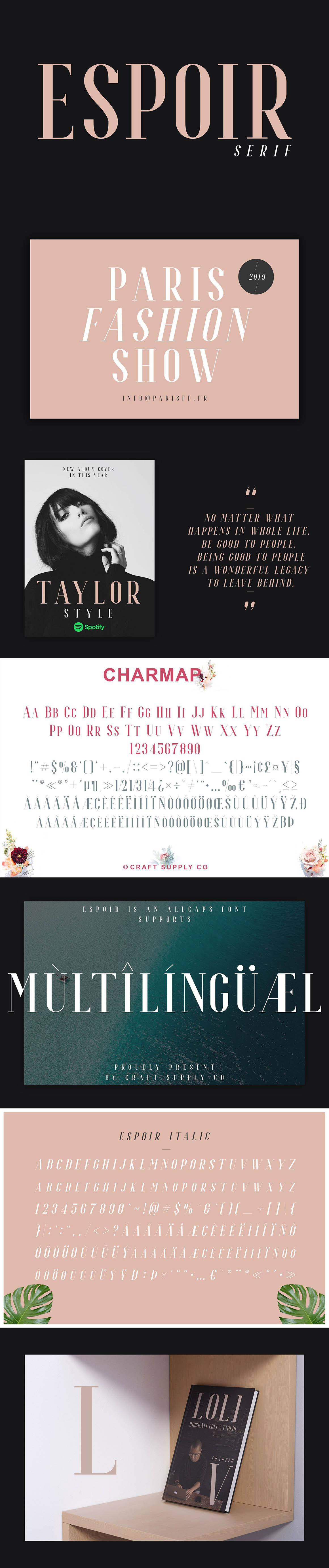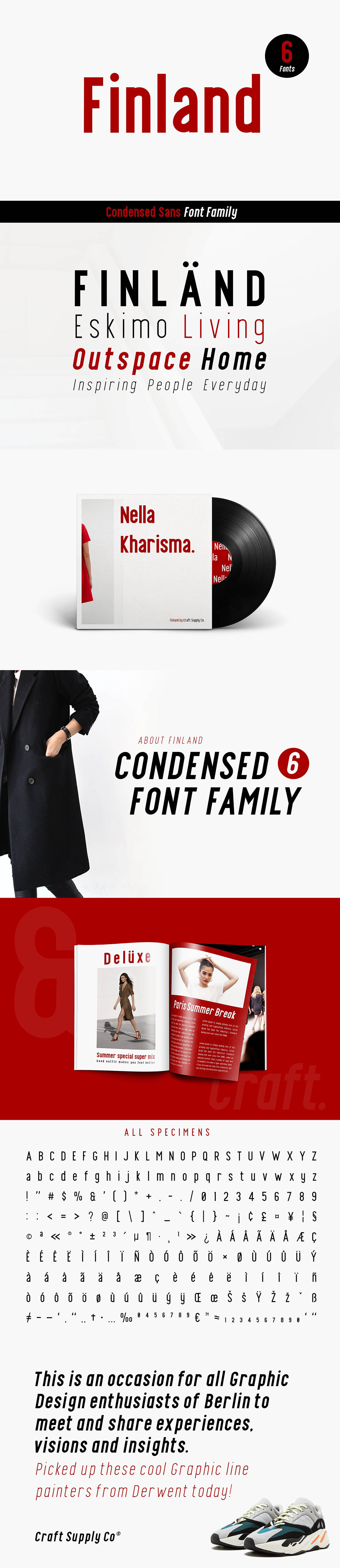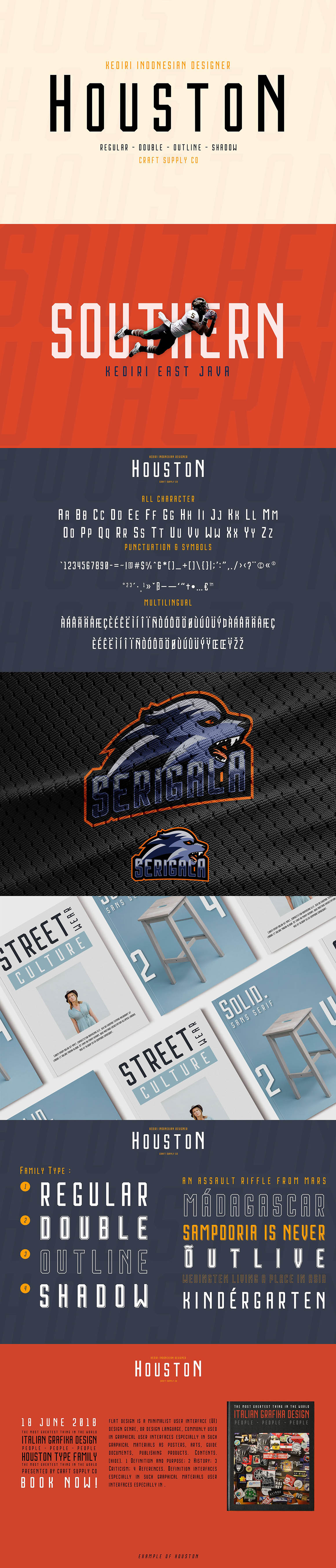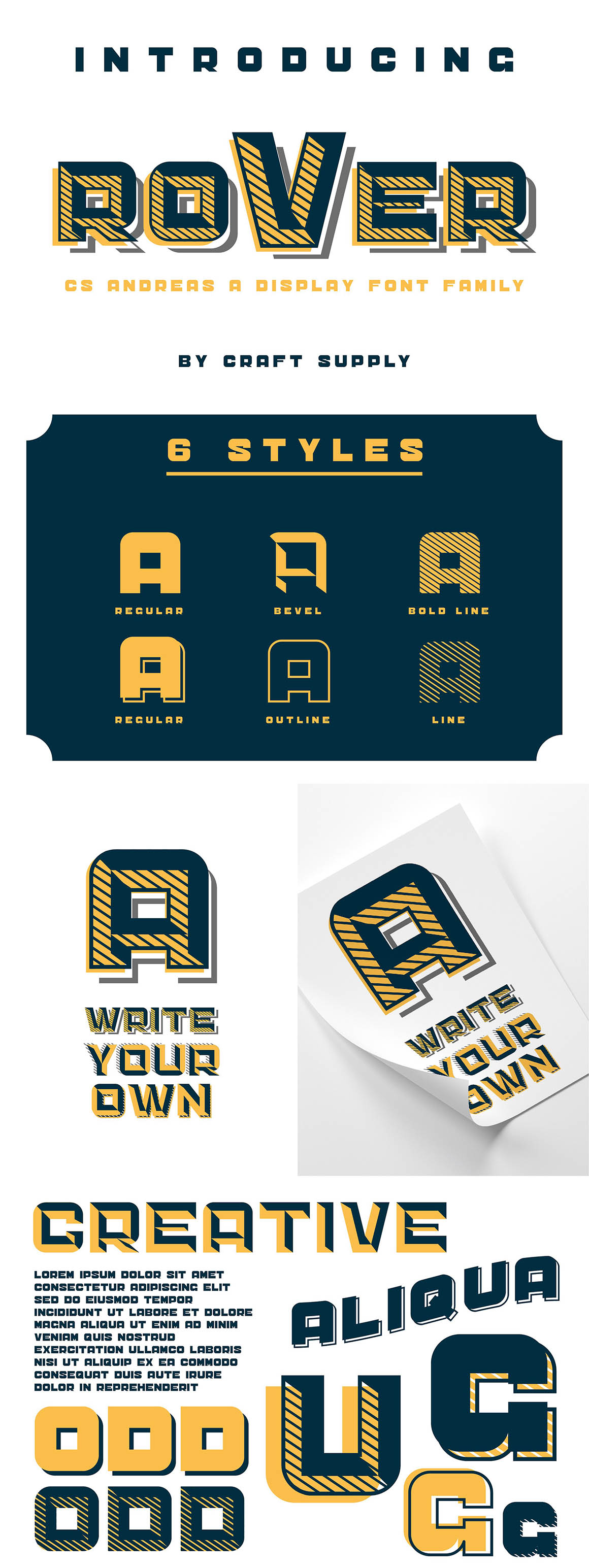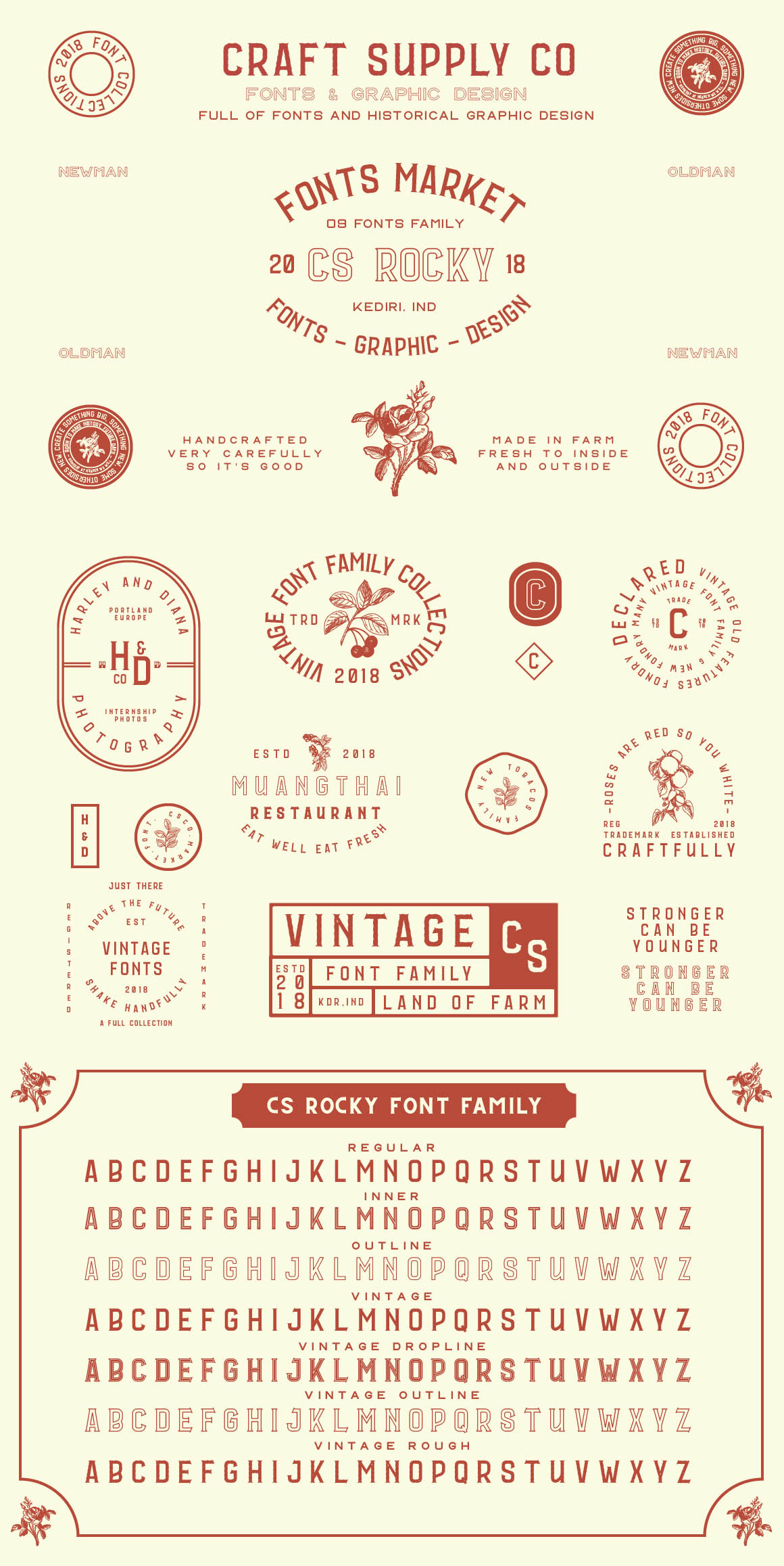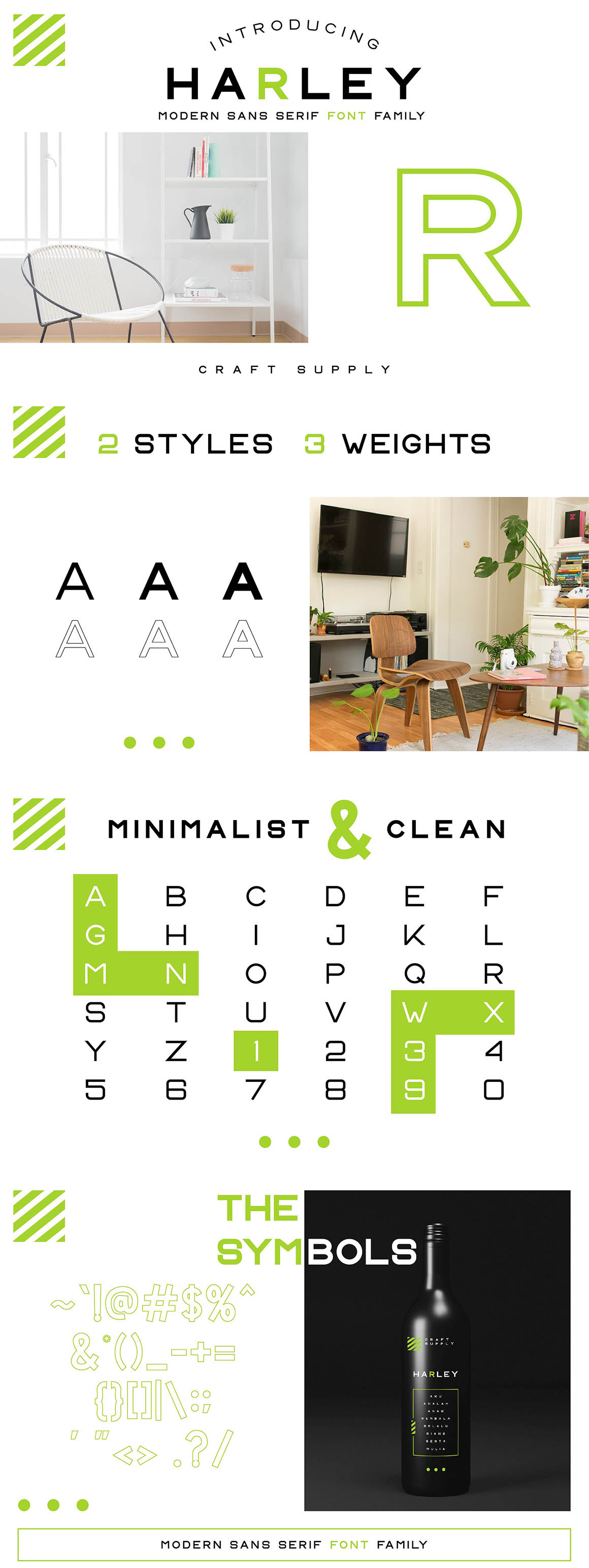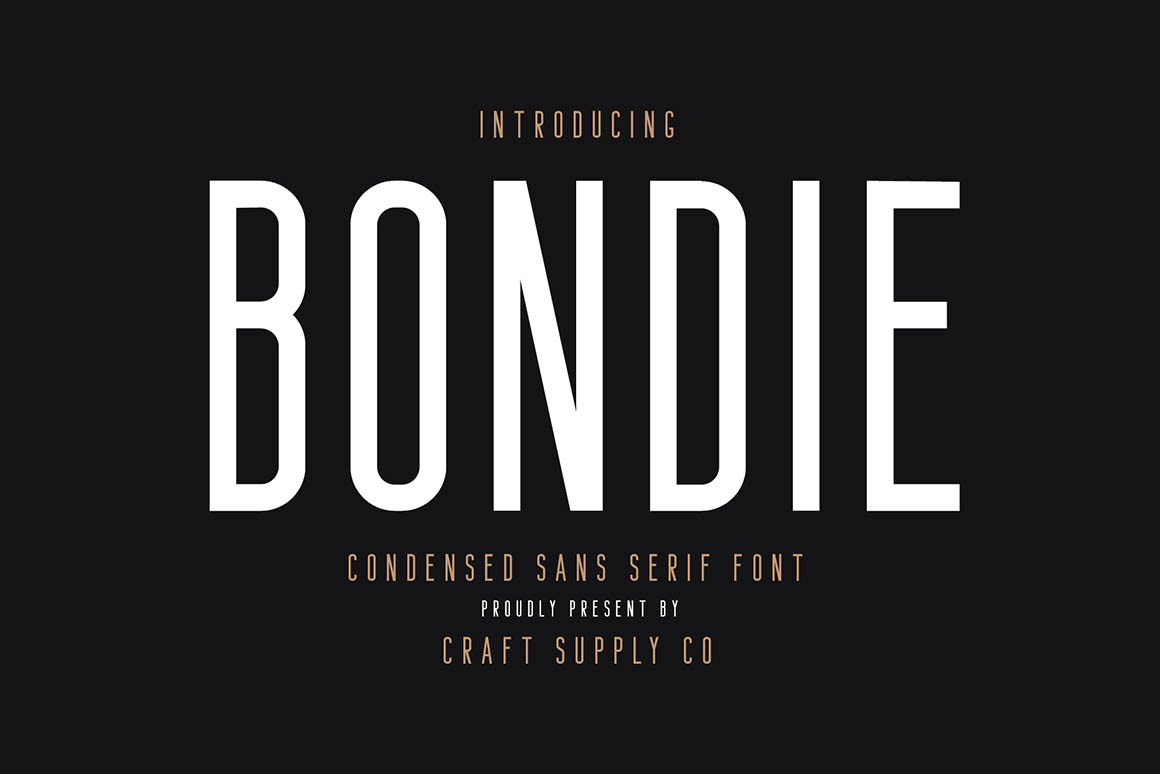
Brand new font bundle with 53 retro or vintage style fonts & some vector graphics extras. All these fonts are clean & elegant so you can use it for any kind of creative projects 😉
Retro & Elegant Fonts from Craft Supply Co. contains 15 clean & elegant style display font families with 53 fonts & some extra vectors & logo templates! Don’t miss this cool retro typography bundle 😉
- 15 clean & elegant retro style display font families with 53 fonts!
- extra vector graphics in some of these font families
15 clean & elegant retro style display font families with 53 fonts!
01. Belgium Font Family from Craft Supply Co.
Belgium Font Family is a modern serif font family whose design refers us to the style of modern sans serif. The distinctive features of Belgium Font Family are the relatively low contrast of strokes, the slightly squarish shapes of round characters and the emphasized business like simplicity.
Belgium Font Family features an original stylistic set which, when turned on, adds features of typical pointed-pen sans serif to some of the lowercase characters. In addition, Belgium Font Family has small capitals for Latin and as well as several interesting ligatures.
Belgium Font Family has been crafted from scratch with a structural logic of its own: a fusion of pure geometry and optical balance. By combining a variety of styles Belgium Font Family is suitable for Logo, greeting cards, quotes, posters, branding, name card, stationary, design title, blog header, art quote, typography
Belgium Font Family also suitable for art, modern envelope lettering or book design, happening style like handdrawn design or watercolor design theme, craft design, any DIY project, book title, wedding font, pop vintage design, or any purpose to make our art/design project look pretty and trendy.
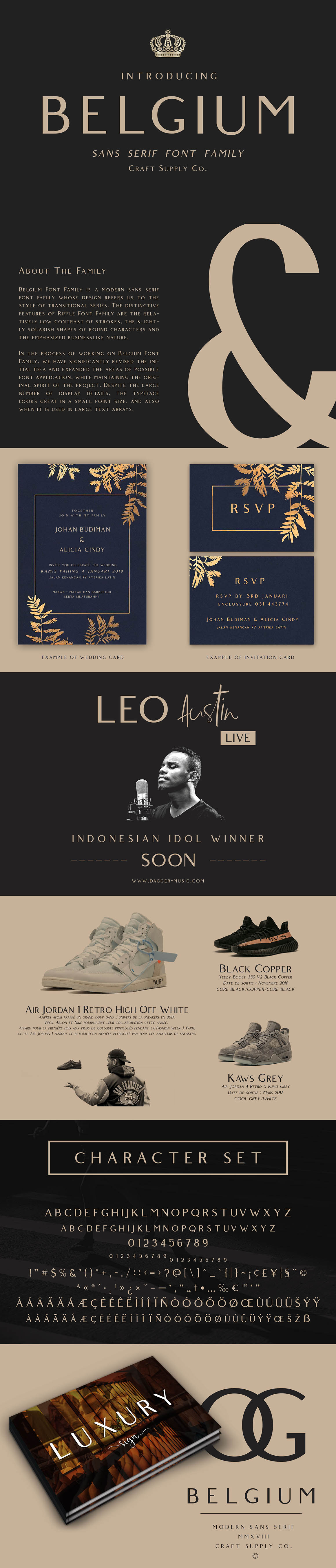
02. Comodo Font Family + Illustrations from Craft Supply Co.
Comodo Font Family + Illustrations includes 4 Style Fonts. It can be used to create almost all types of design projects like print materials. Just use your imagination and some graphic design set in Extras, your project will become more alive and look great than ever with one of the Comodo Font.
You want to make a greeting card or a package design, or even a brand identity, craft design, any DIY project, book title, wedding font, pop vintage design, retro design or any purpose to make your art / design project look pretty and trendy? Feel free to play with all the patterns and shape!
03. Espoir Font Family from Craft Supply Co.
Introducing Espoir font family is an Elegant and Fancy Font. The font designer, Wahyu Hadi Yuana, was inspired by the engraving fonts of the late 19th century. Espoir is based on the compact solid font, by combining a variety of styles. Espoir font family offers an attractive tool for producing elegant decorative lettering, for example, for book covers or for posters and packaging.
You want to make a greeting card or a package design, or even a brand identity, craft design, any DIY project, book title, wedding font, pop vintage design, retro design or any purpose to make your art / design project look Elegant and Classy? Feel free to play with this font!
04. Espoir Serif – Font Family from Craft Supply Co.
Espoir Serif Font Family is a modern serif font family whose design refers us to the style of transitional serifs. The distinctive features of Espoir Serif Font Family are the relatively low contrast of strokes, the slightly squarish shapes of round characters and the emphasized businesslike nature.
In the process of working on Espoir Serif Font Family, we have significantly revised the initial idea and expanded the areas of possible font application, while maintaining the original spirit of the project. Despite the large number of display details, the typeface looks great in a small point size, and also when it is used in large text arrays.